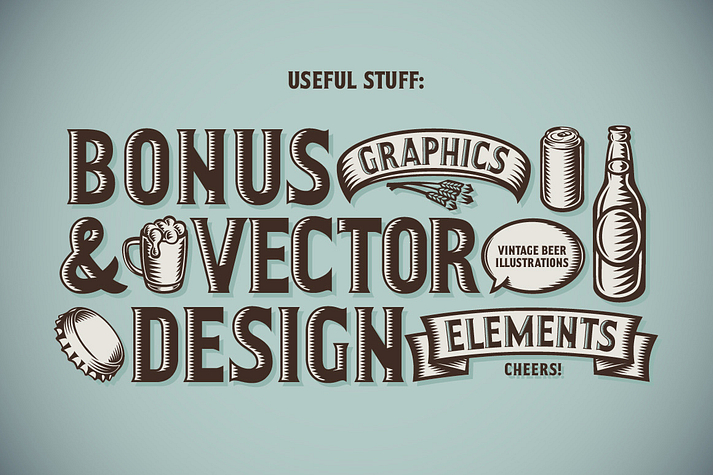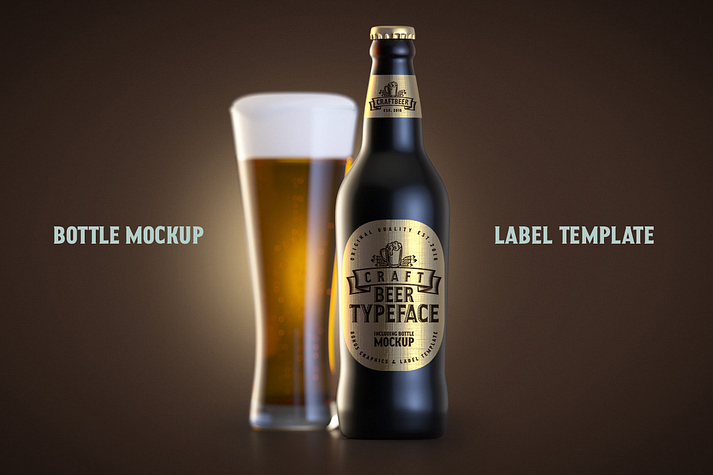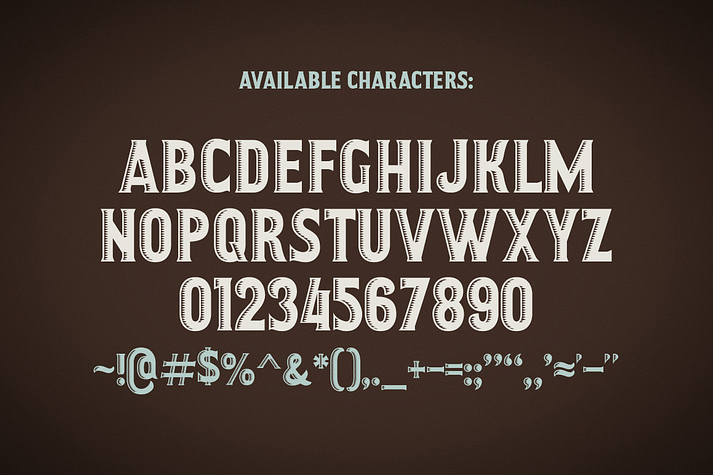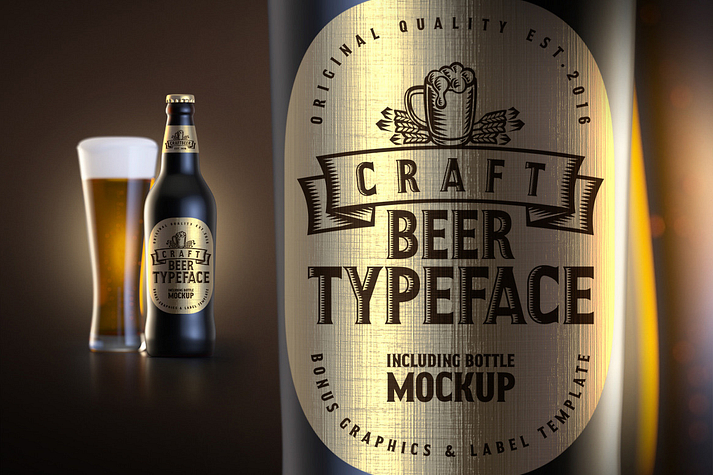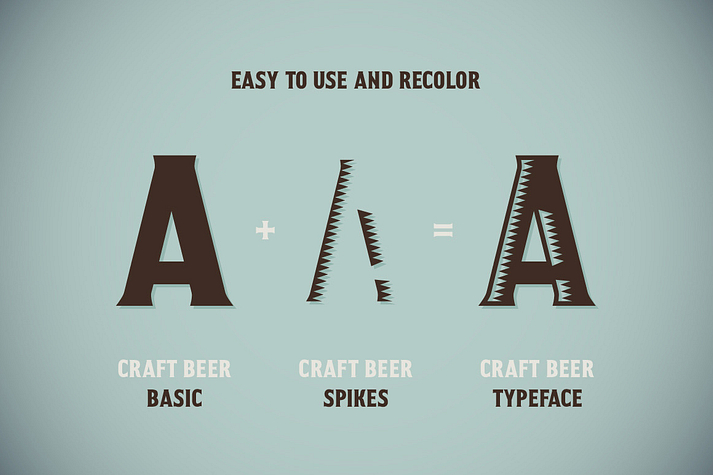
Craft Beer
Craft Beer is a display sans font family. This typeface has three styles and was published by Gleb Guralnyk.
Hello! Presenting my new design kit named Craft Beer Typeface. It includes font, mockup and bonus graphics.